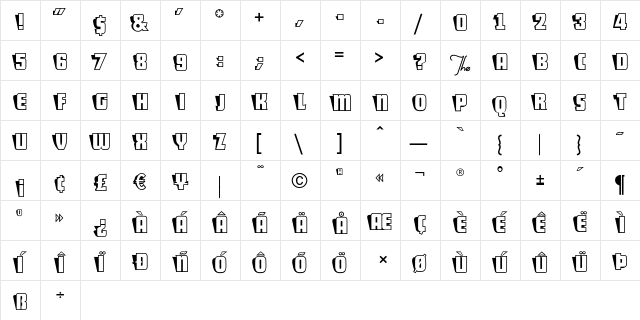
Sho-Card-Caps Regular
Design Context for Sho-Card-Caps Typeface
Sho-Card-Caps is a composed and adaptable typeface that performs quietly and consistently across a wide range of design contexts.